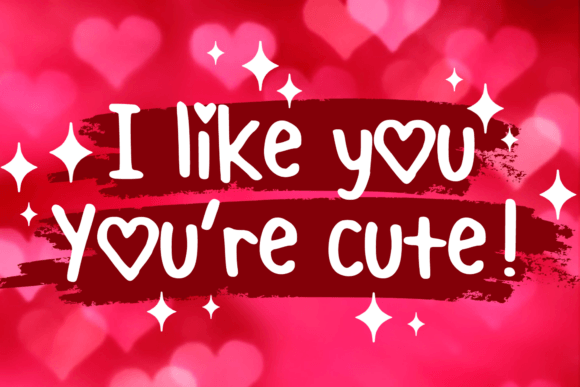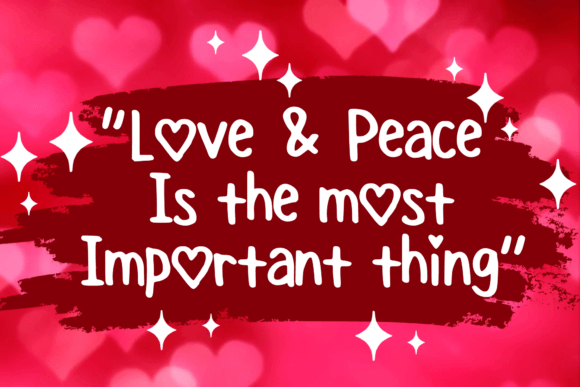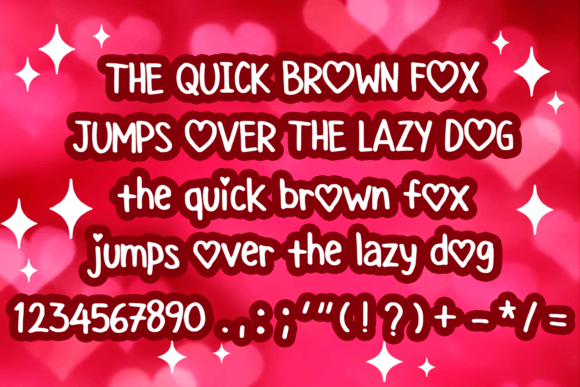
Introduction to Lovely Handwriting Font
Do you ever find yourself rummaging through your sketchbook, searching for the perfect font to add that extra touch to your creative project? For many designers, the quest for the perfect handwritten font is a never-ending journey. But what if we told you that you’ve just stumbled upon the ultimate solution? Enter the Lovely Handwriting Font, a delightful and versatile design resource that’s sure to bring a smile to your face.
Whether you’re designing a Valentine’s Day card, a t-shirt, or a packaging label, the Lovely Handwriting Font is the perfect companion to bring your ideas to life. With its playful and charming style, this font is a must-have for any designer looking to add a casual touch to their work. And the best part? It’s available for free download, making it an accessible and valuable resource for designers of all levels.
Key Features of Lovely Handwriting Font
- Unique, Hand-Drawn Design: The Lovely Handwriting Font is a beautifully crafted, high-quality design resource perfect for any creative project.
- Perfect for Personal Projects: With its lovely, handwritten style, this font is ideal for personal projects, such as invitations, cards, and journals.
Honest Review: Lovely Handwriting Font
As a designer, I’m always on the lookout for high-quality design resources to enhance my creative projects. Recently, I stumbled upon the Lovely Handwriting Font, and I’m excited to share my honest review.
- ✨ Beautiful, elegant script font that’s perfect for adding a touch of personality to your designs.
- ✨ High quality and well-crafted font that’s ideal for printing or digital use.
- ⚠️ The font only comes in a few weights, which might limit its versatility for certain projects.
Overall, I’m impressed with the Lovely Handwriting Font’s quality and style. While it may have some limitations, it’s still a valuable design resource that I’d recommend to fellow designers. With a little creativity and experimentation, you can make the most of this beautiful font and elevate your creative projects to the next level.
To get the most out of the Lovely Handwriting Font, experiment with different font sizes, colors, and styles. Combine the font with other design elements, such as images and shapes, to create visually appealing designs.
The Lovely Handwriting Font is perfect for a variety of design projects, including invitations, posters, and social media graphics. Its high-quality design and transparent background make it an ideal choice for creative professionals and hobbyists alike.